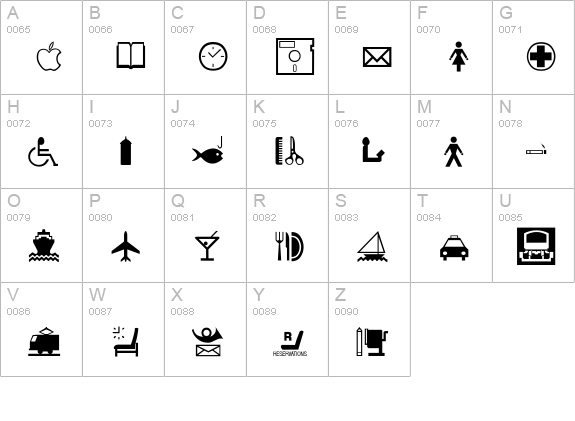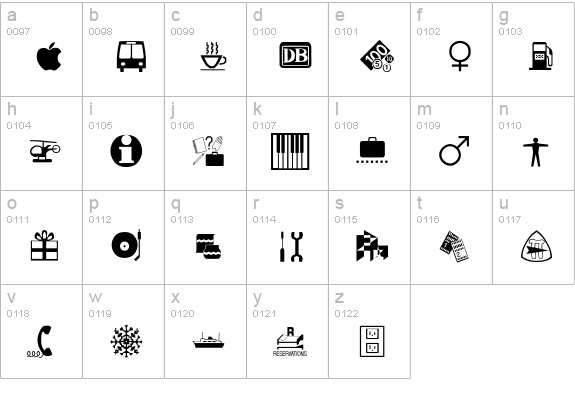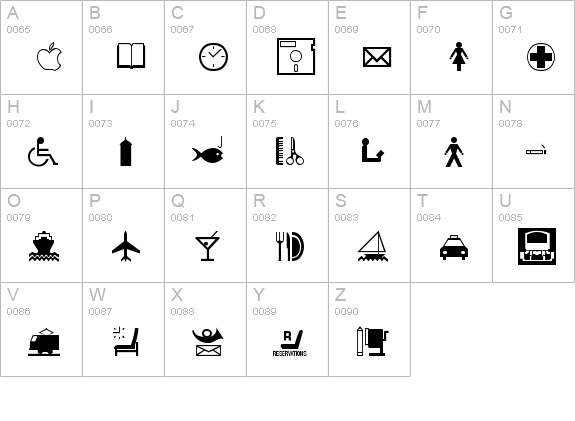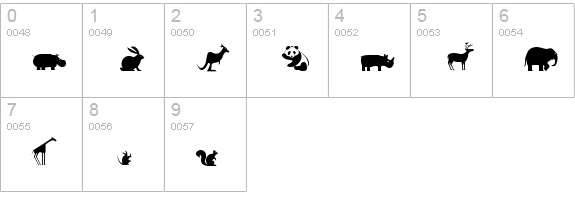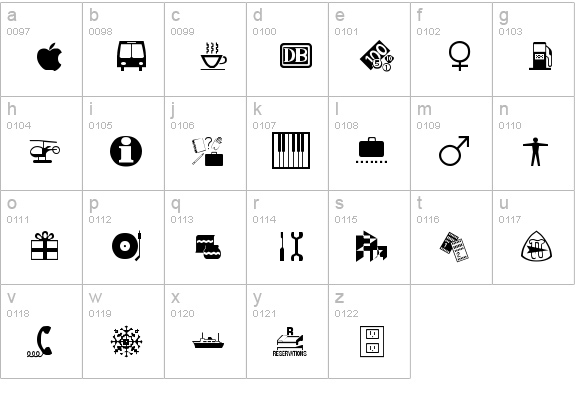
InterSymb is a versatile and modern font that is perfect for creating eye-catching and professional designs. With its clean lines and unique letterforms, this font is sure to make a statement in any project. Whether you're designing a logo, website, or print materials, InterSymb will add a touch of sophistication and elegance. What sets InterSymb apart is that it is not only a visually stunning font, but it is also free to use. That's right, this font is freely available to download at FontsMarket.com. We believe that great design should be accessible to everyone, and that's why we have made InterSymb available to all designers, regardless of budget. Downloading InterSymb couldn't be easier. Simply visit FontsMarket.com, search for InterSymb, and click the download button. Within moments, you'll have access to this incredible font, ready to be used in your next design project. So why wait? Start using InterSymb today and elevate your designs to a whole new level. Whether you're a professional designer or just starting out, InterSymb will help you create visually stunning and impactful designs that will leave a lasting impression. Don't miss out on this amazing opportunity to enhance your creative work with InterSymb - the freely available font from FontsMarket.com.